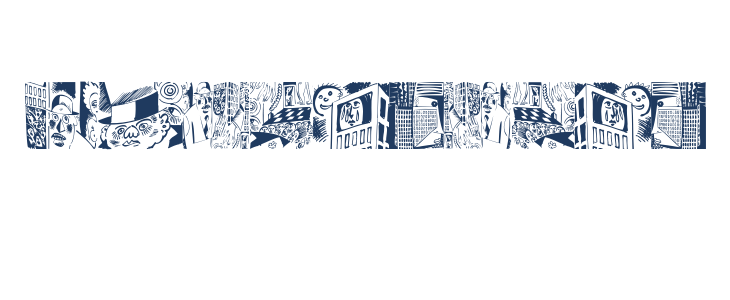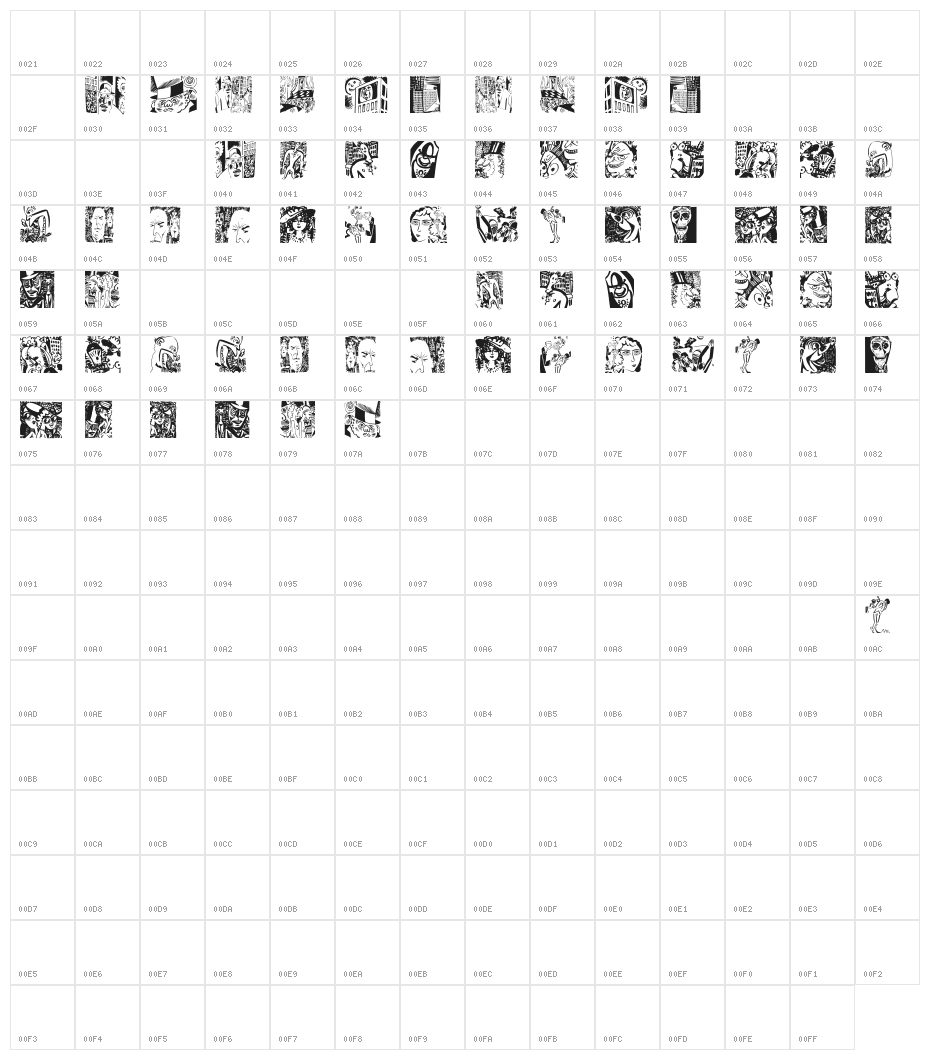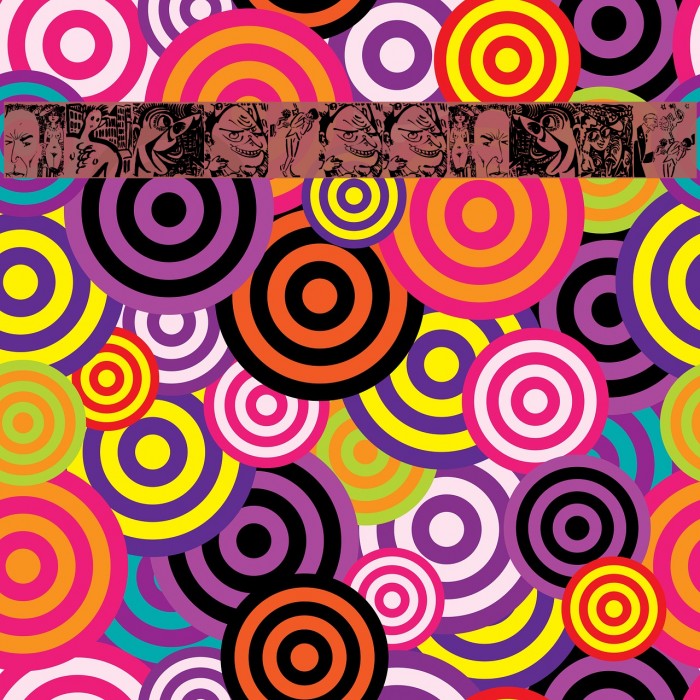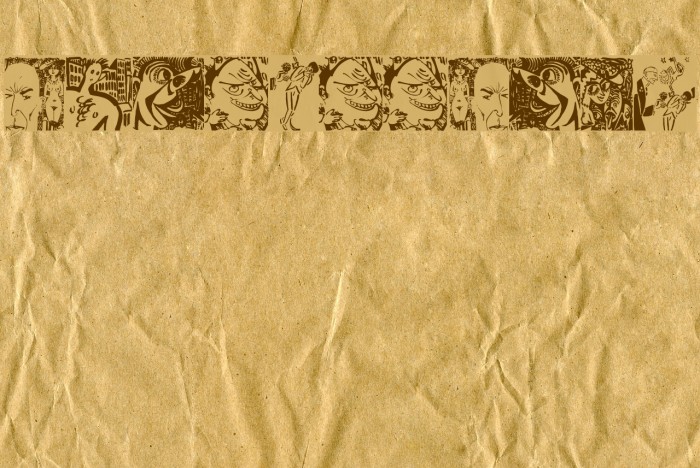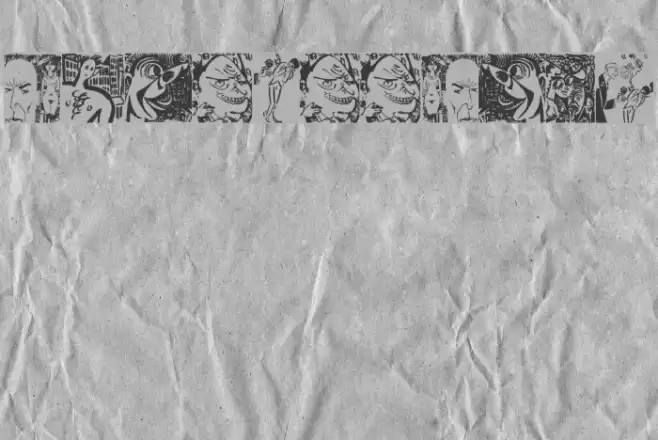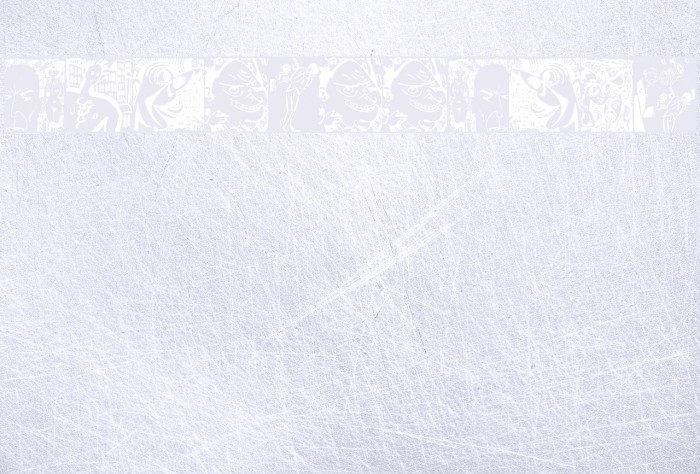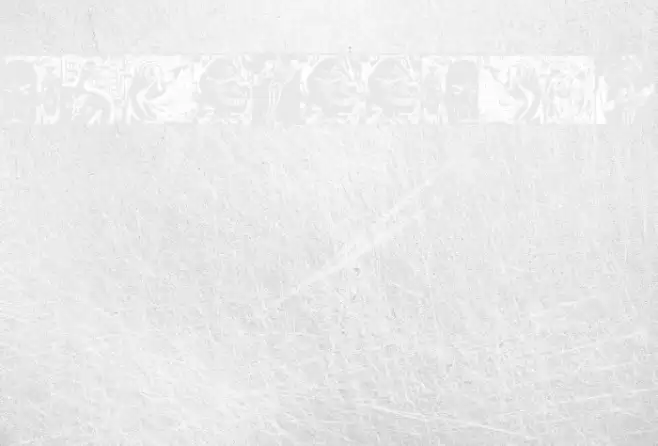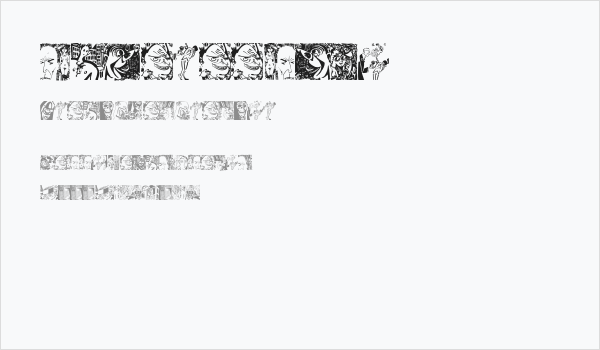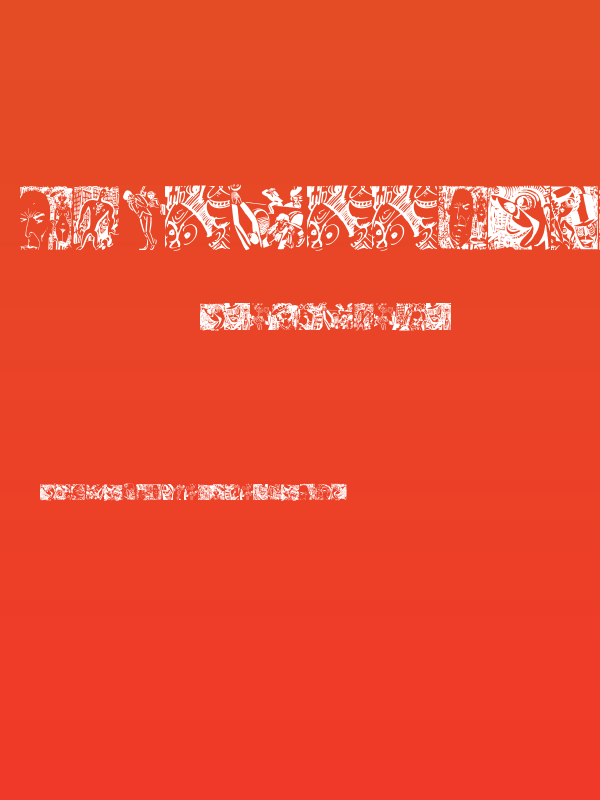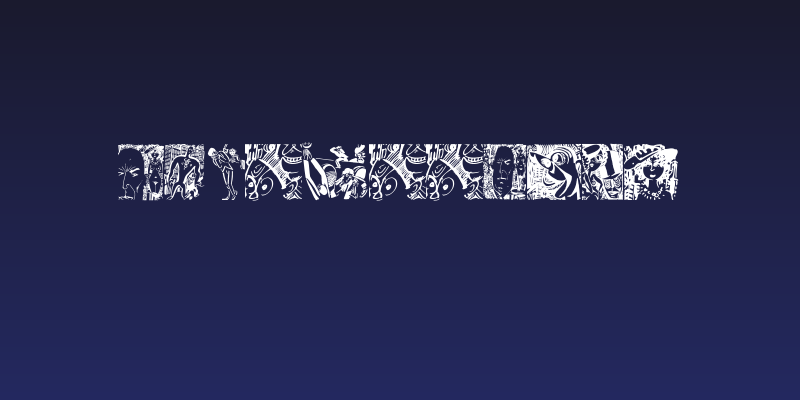
MasereelTwo Font
MasereelTwo Description
Highly decorative and illustrative font composed of intricate, black-and-white woodcut-style scenes within each character, featuring expressive faces, urban environments, and dynamic compositions.
| Overall Style | Decorative, Artistic, Expressionist |
| Use Case | Headlines, Posters, Artistic projects, Display text |
| Proposed Projects | Graphic novels, posters, album covers, editorial illustrations, art installations. |